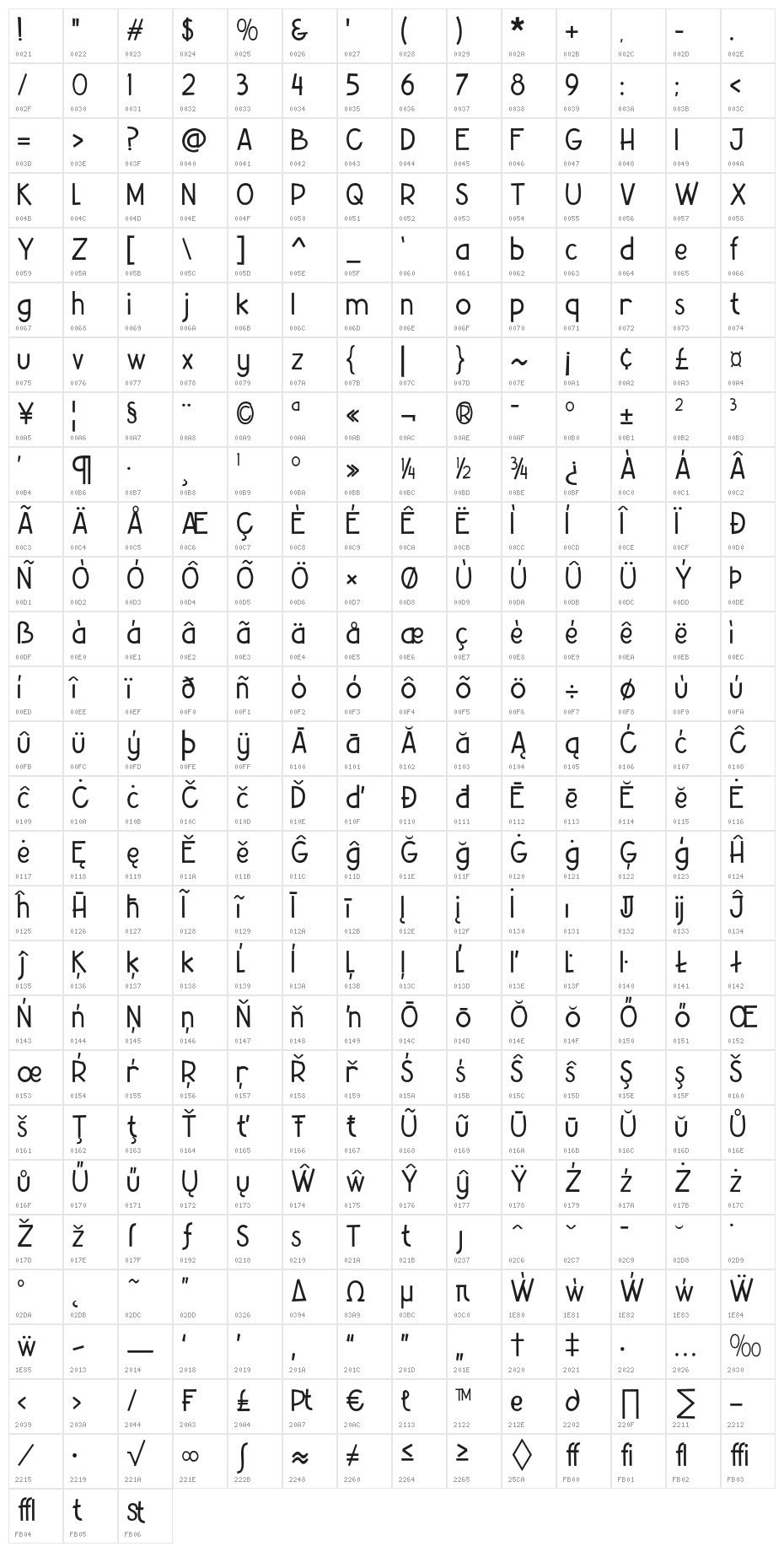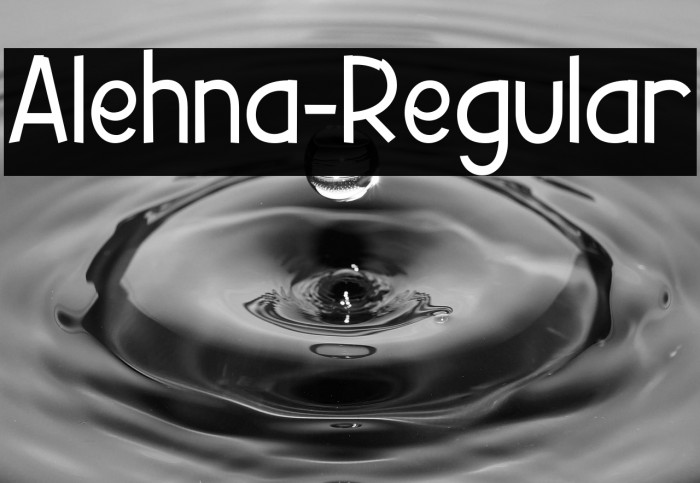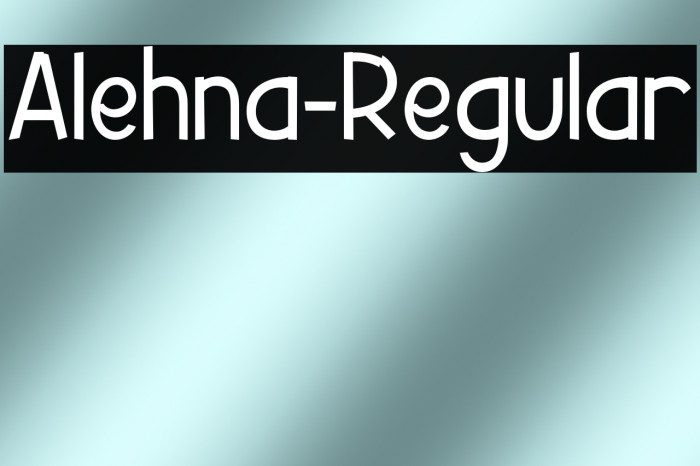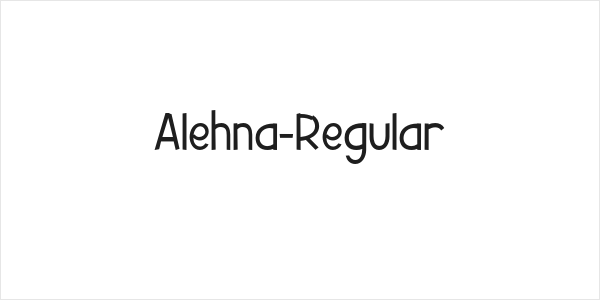
Alehna-Regular Font
Alehna-Regular Description
This font features a clean and modern sans-serif style with a slightly playful touch. The characters are uniformly structured, offering a balanced and harmonious appearance. Uppercase letters are bold and assertive, while lowercase letters maintain a friendly and approachable look. The numerals are clear and easily distinguishable, making them suitable for various applications. Special characters are well-integrated, maintaining the overall aesthetic of the font. The design is versatile, making it suitable for both digital and print media.
| Proposed Projects | Ideal for branding, advertising, web design, and editorial projects. |